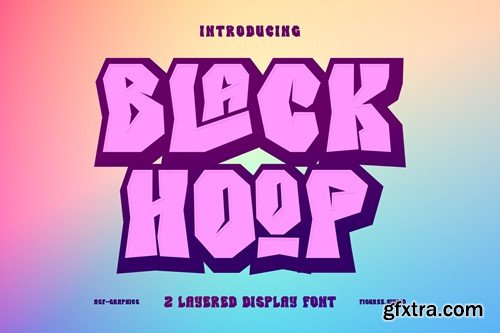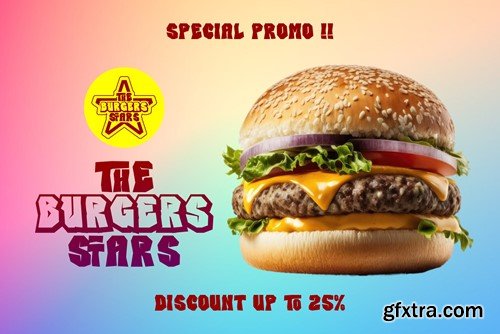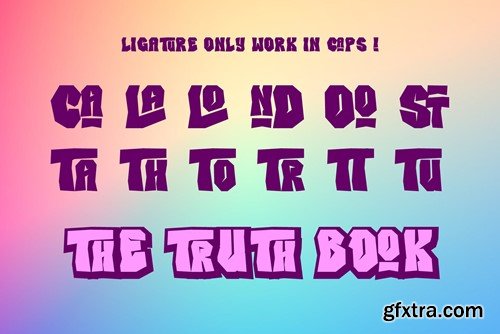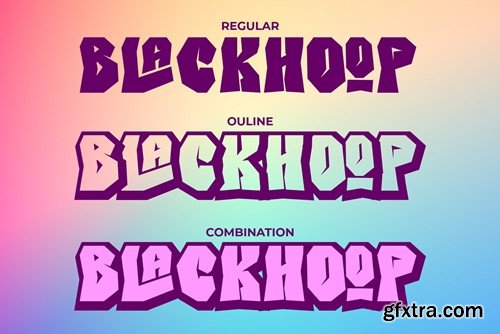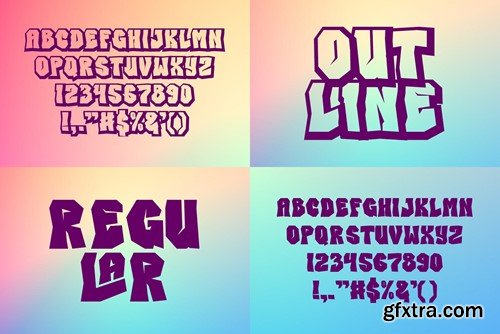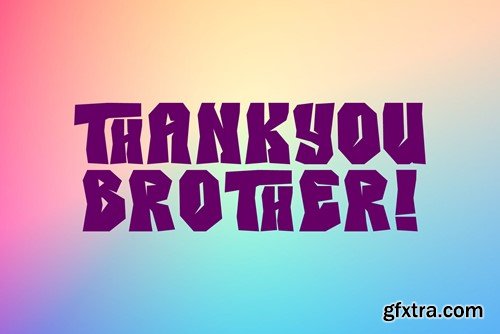
黑霍普 - 层叠显示字体 NKTR4HE
Blackhoop - Layered Display Font NKTR4HE
Blackhoop - Layered Display Font
Blackhoop is a versatile and dynamic layered display font that adds depth and dimension to your designs. With multiple layers, this font allows you to create eye-catching text with vibrant colors and creative effects. Whether it's for posters, banners, or branding, Blackhoop offers endless design possibilities, making your text stand out in a visually striking and captivating way. This font is the perfect choice for projects that require a bold and layered typographic style.
Features:
• Standards Characters
• Punctuation
• Ligatures
• Support Multilingual